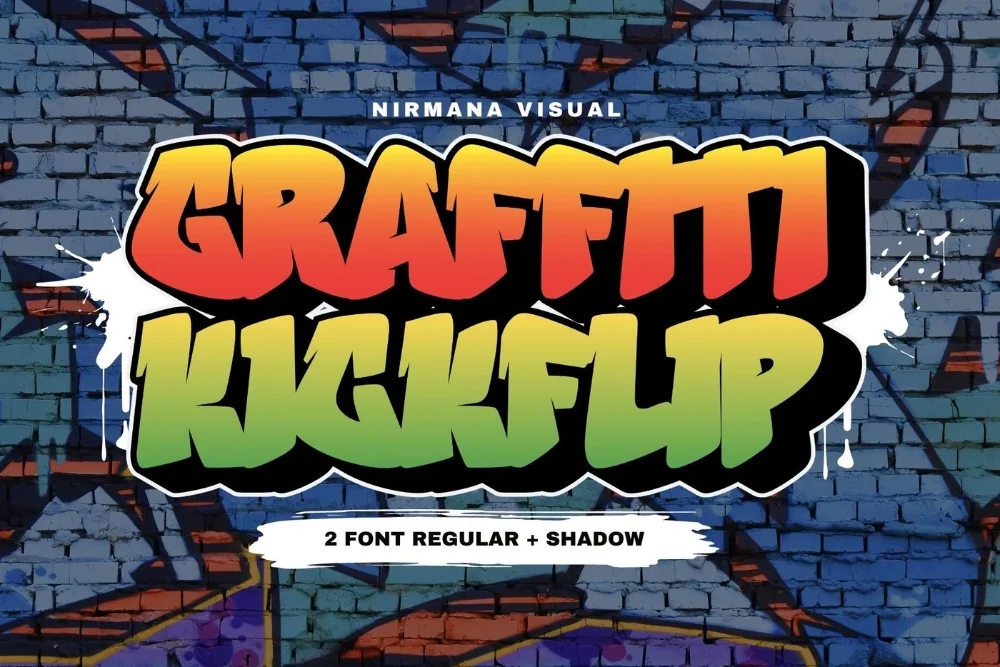
Skate Deck Graffiti Font
There is no shortage of options when you search for a skate graffiti font, so here is precisely what makes this one different. Board-shop lettering with a rough, self-printed edge. Casual and confident in equal measure.
Letters vary slightly in weight and sit at inconsistent heights, and a light ink-bleed texture runs along the edges. It looks intentionally printed rather than typed.
Suits deck graphics, skate shop merch, sticker packs, and youth event flyers.
Give it room. Crowding this kind of alphabet against the edge of a layout wastes the shapes, and a generous margin does more for the design than any extra effect.